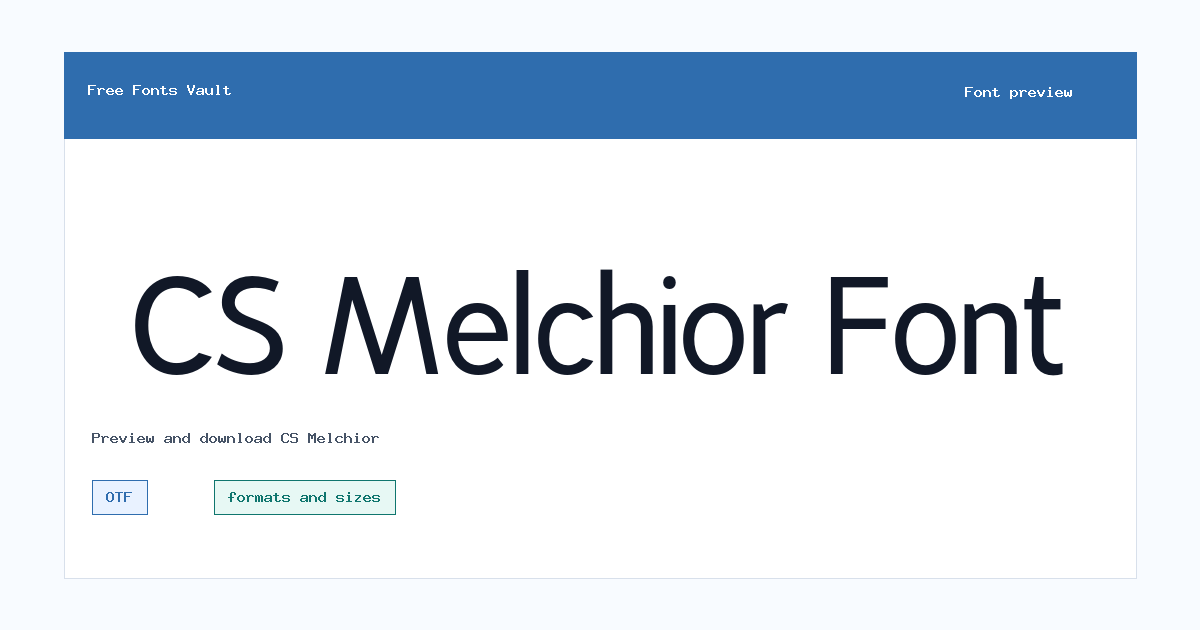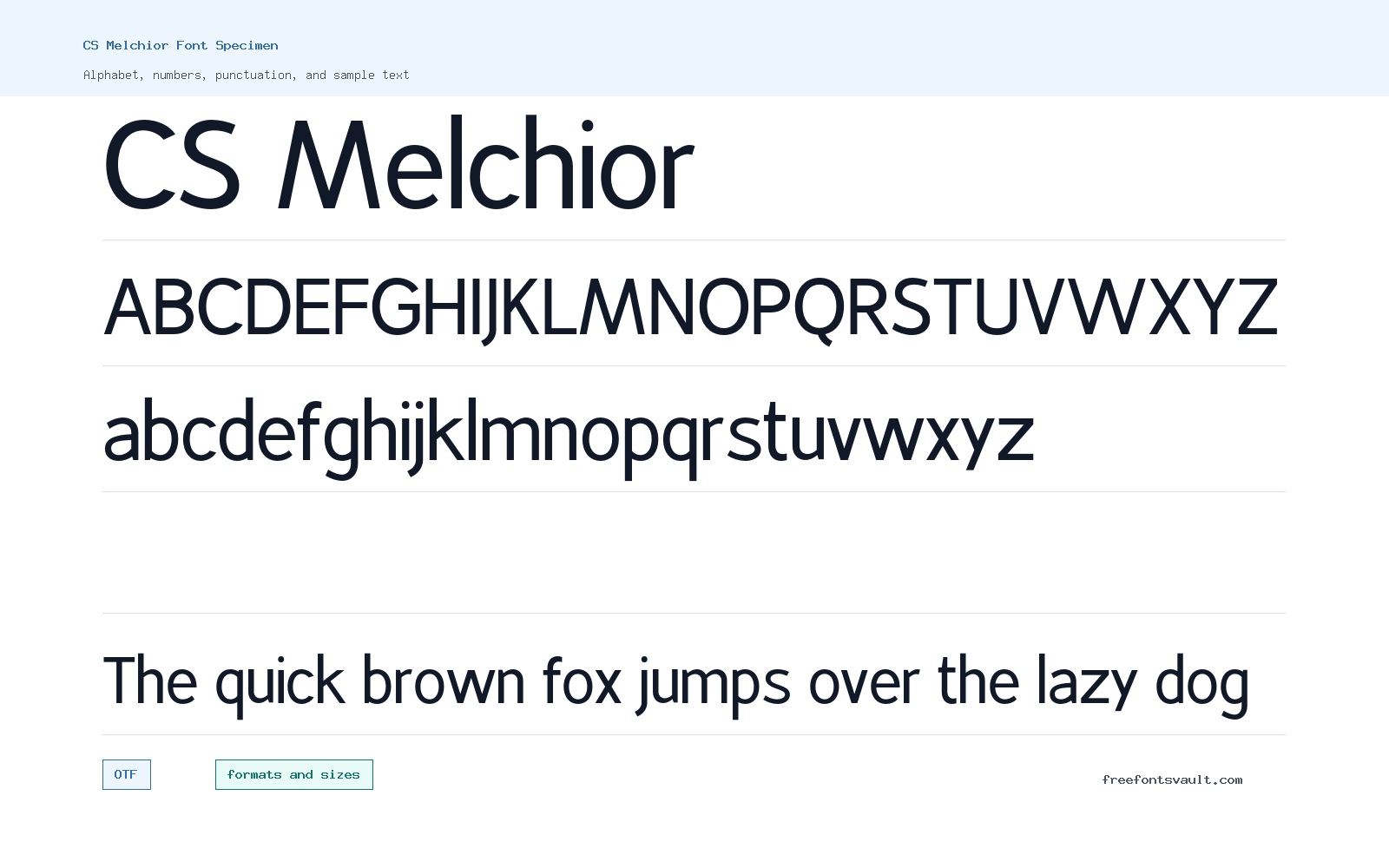
CS Melchior
CS Melchior font.
CS Melchior is a contemporary sans serif font with a clean, geometric look. The demo OTF works well for trying short text, headings, and layout ideas before deciding whether the full licensed family fits your project.
About CS Melchior Font
CS Melchior has a modern sans serif style built around neat shapes, balanced curves, and crisp letterforms. Its regular weight gives preview text a tidy, professional tone without heavy decoration. That makes it useful for testing brand mockups, simple posters, web headings, social graphics, and other designs where a clean font is more helpful than a highly expressive display face.
- Contemporary sans serif design with a clean geometric feel
- Suitable for testing headings, short labels, brand concepts, and social graphics
- Logo and brand concept testing
- Clean website or app heading mockups
- Posters, flyers, and presentation titles
- Minimal social media graphics
- Short editorial or packaging-style text
CS Melchior is credited to Craft Supply Co.
Who made CS Melchior?
The font is credited to Craft Supply Co.